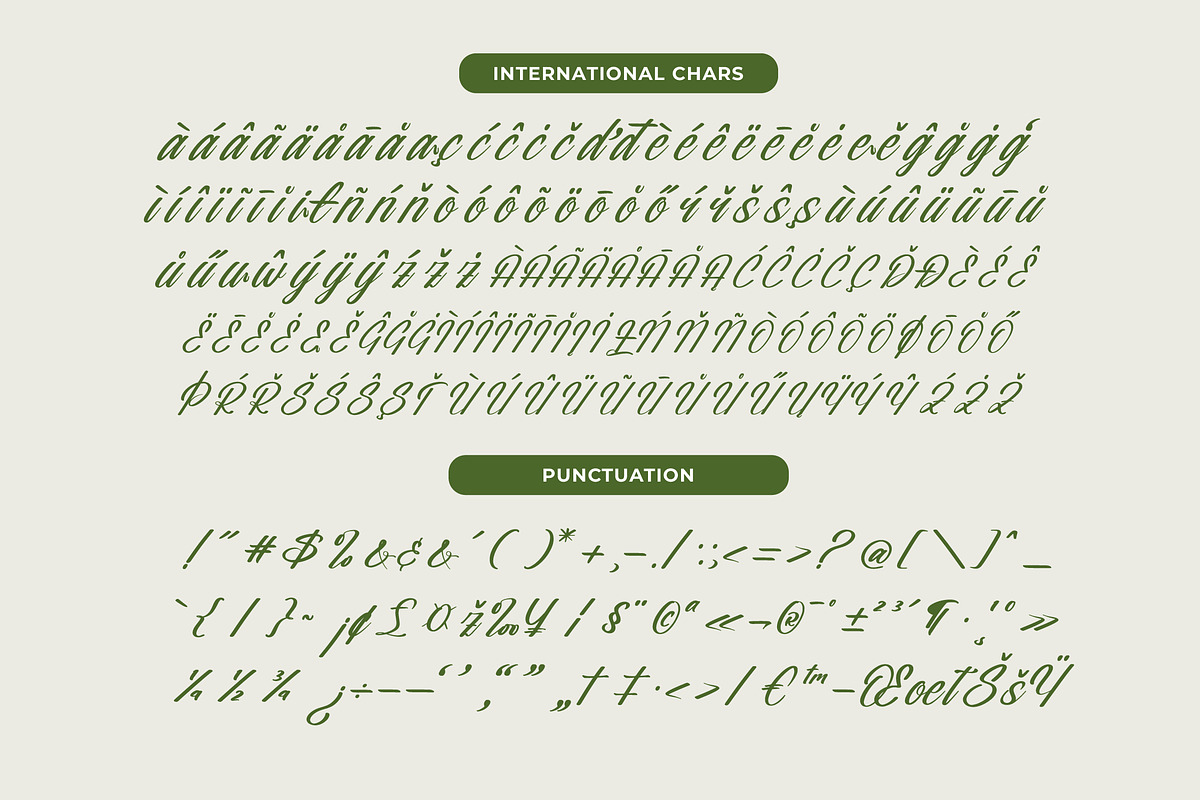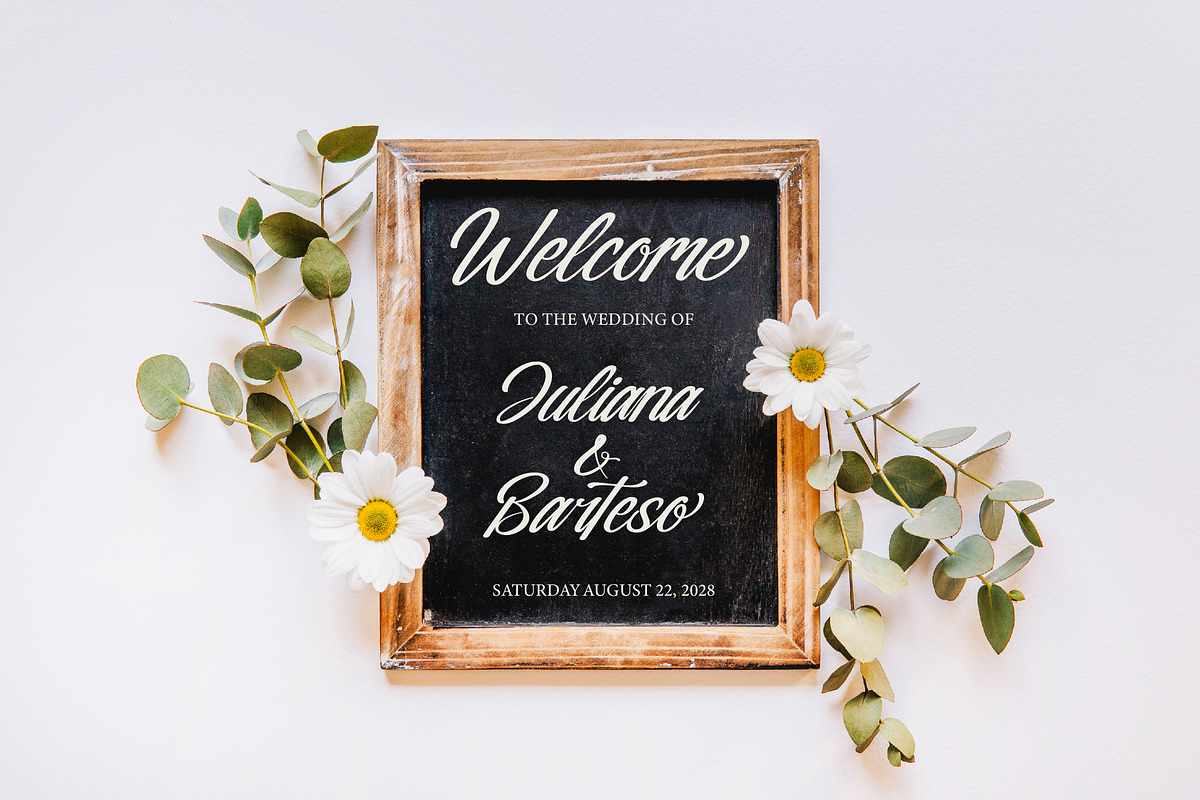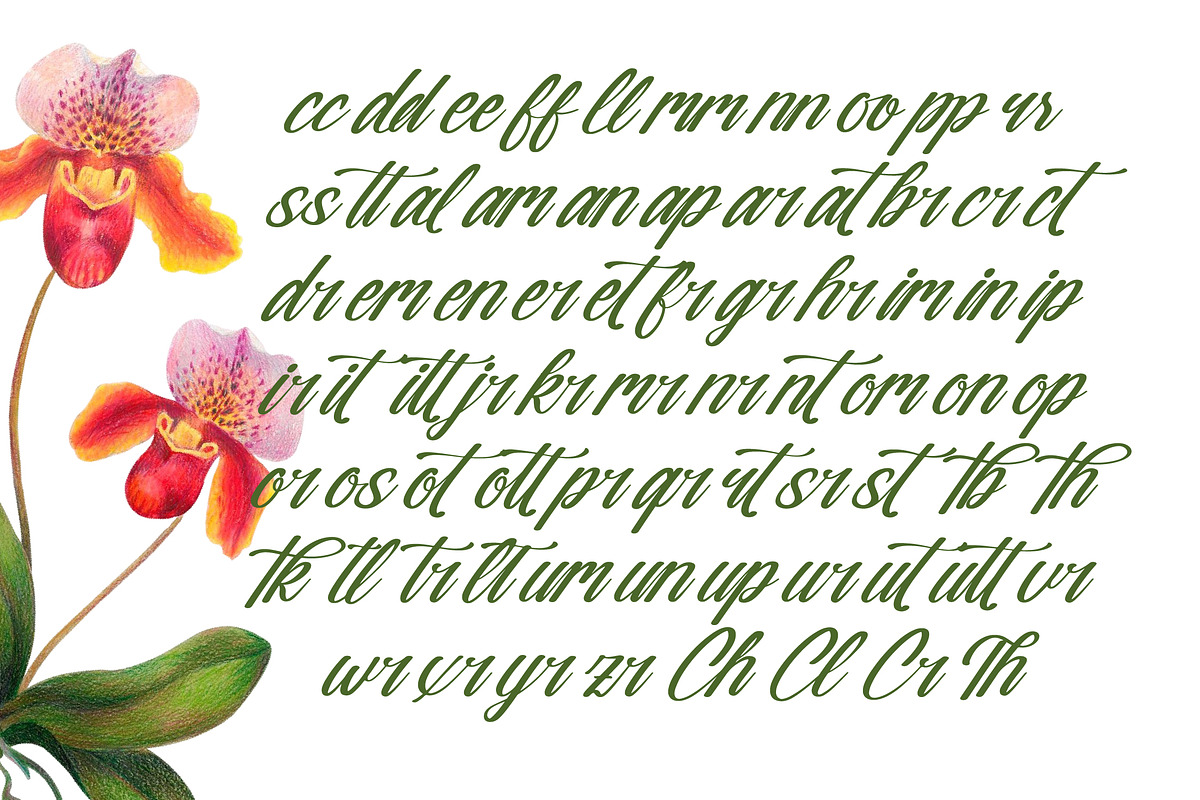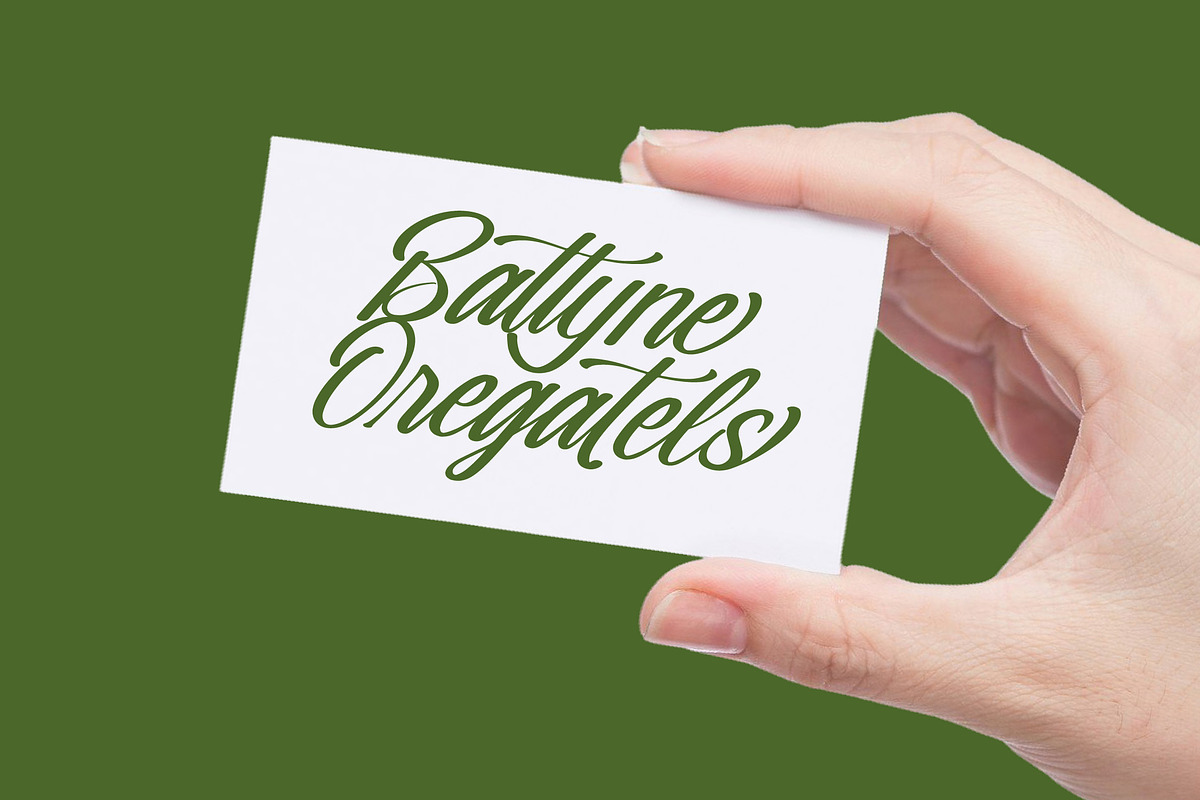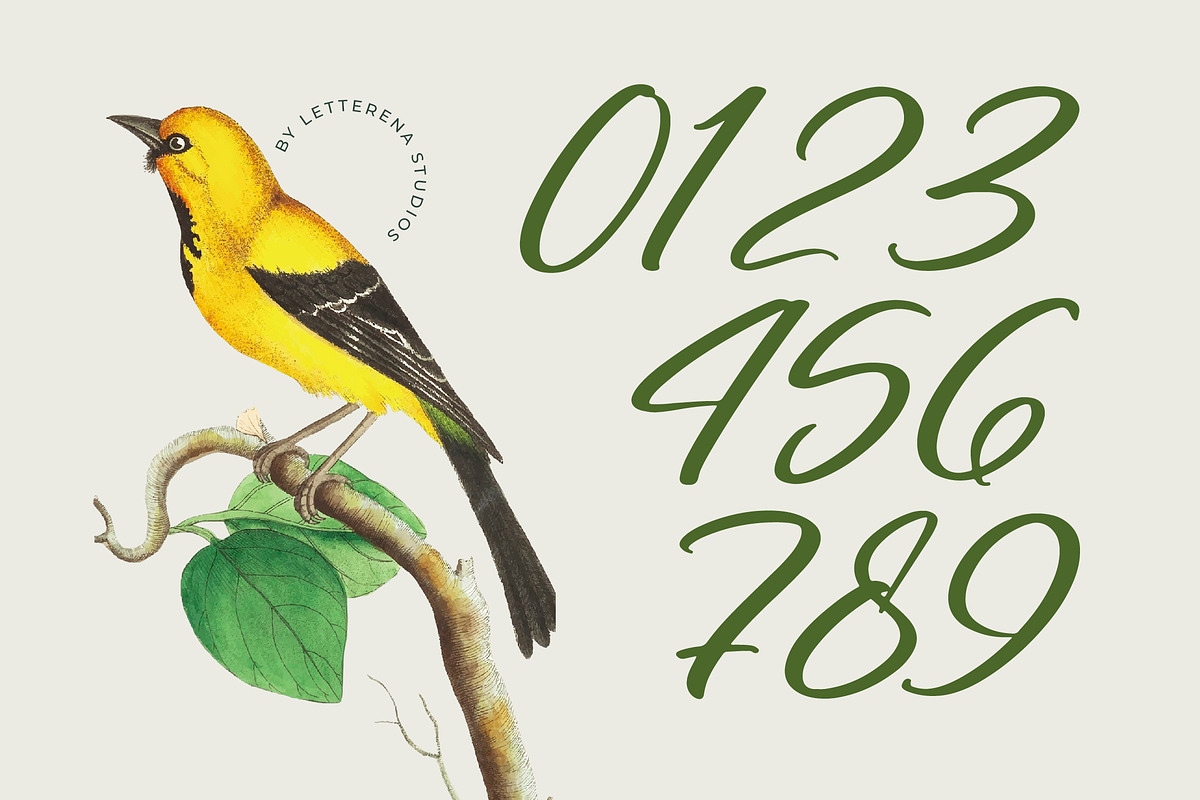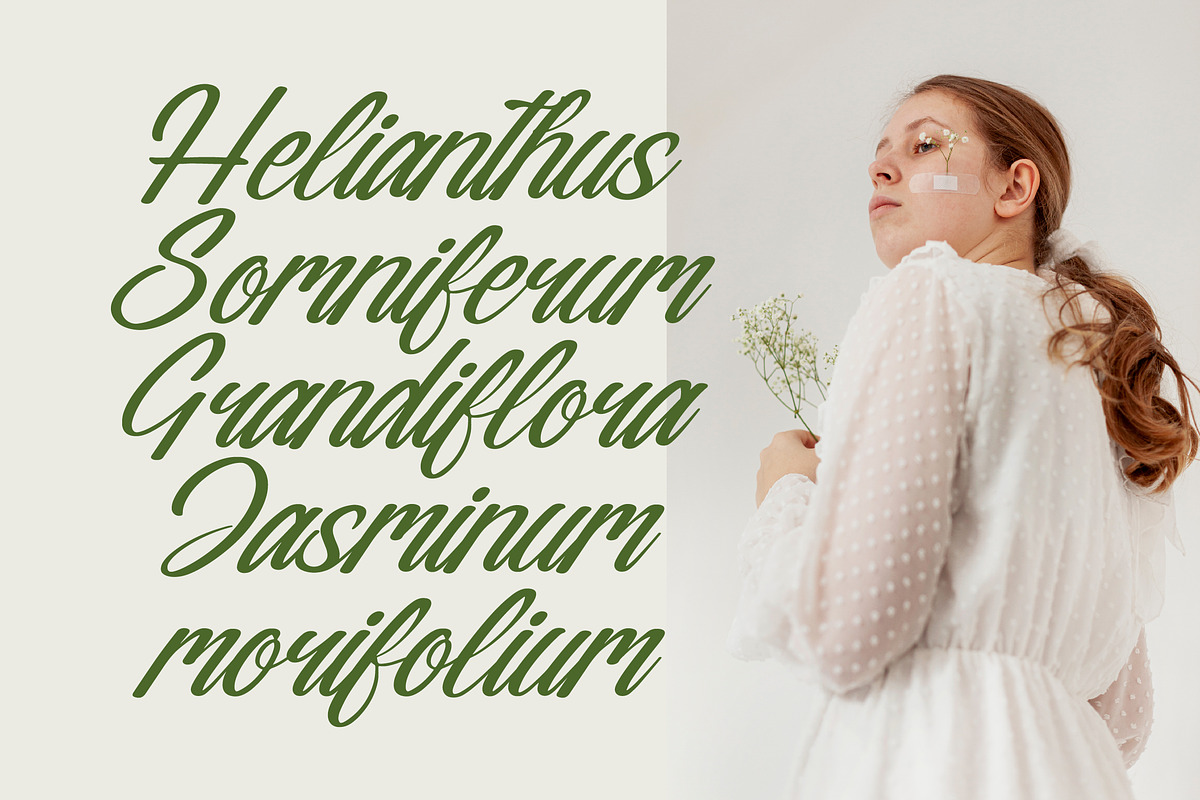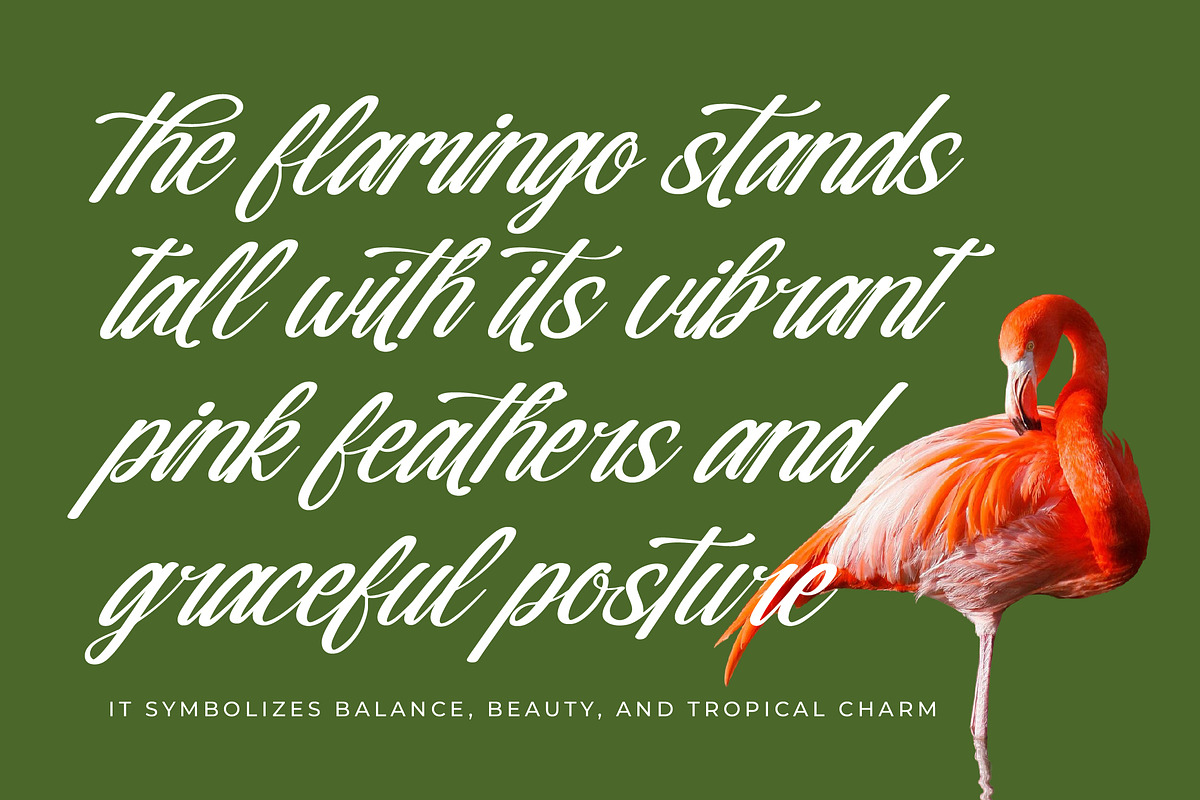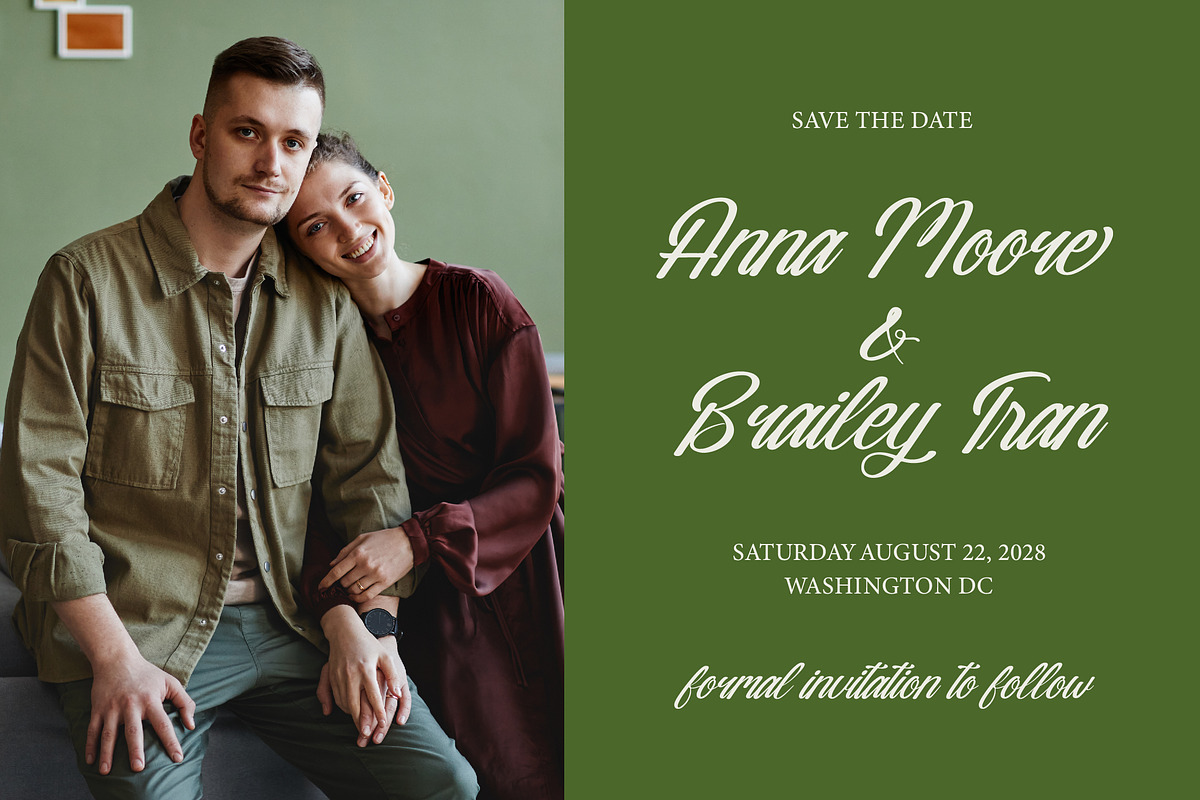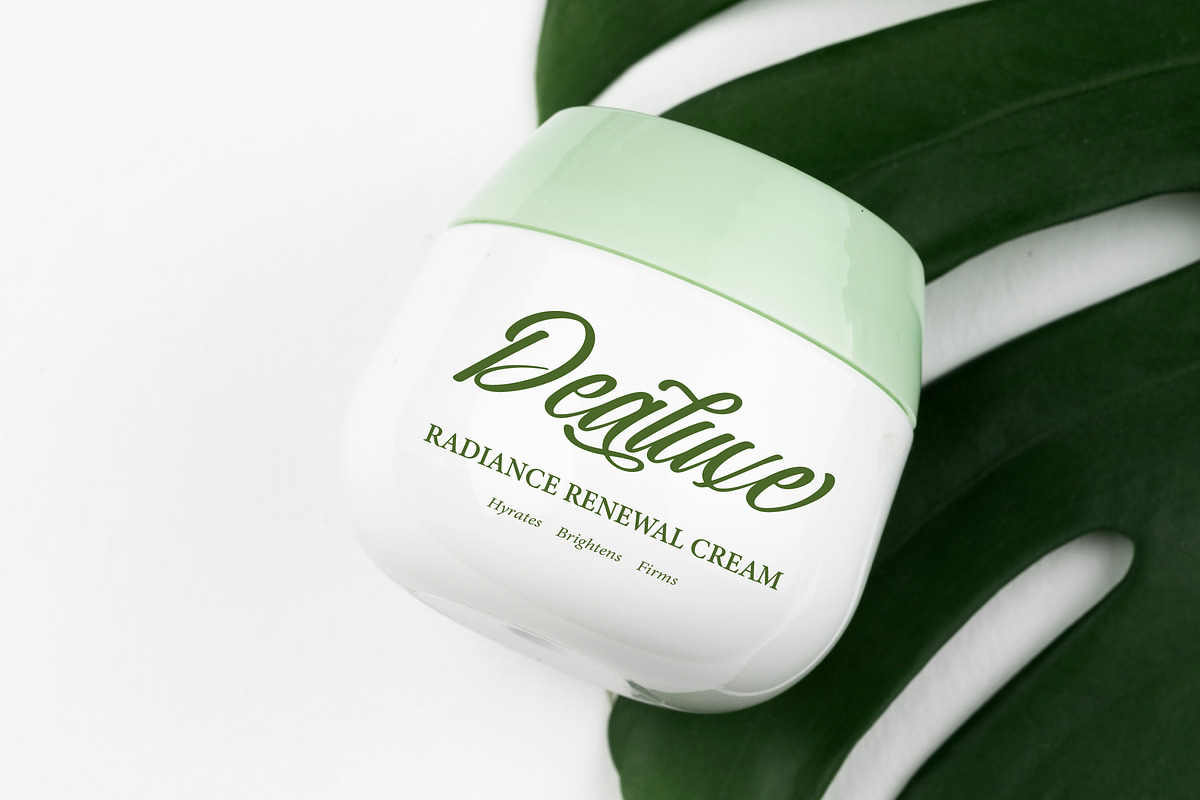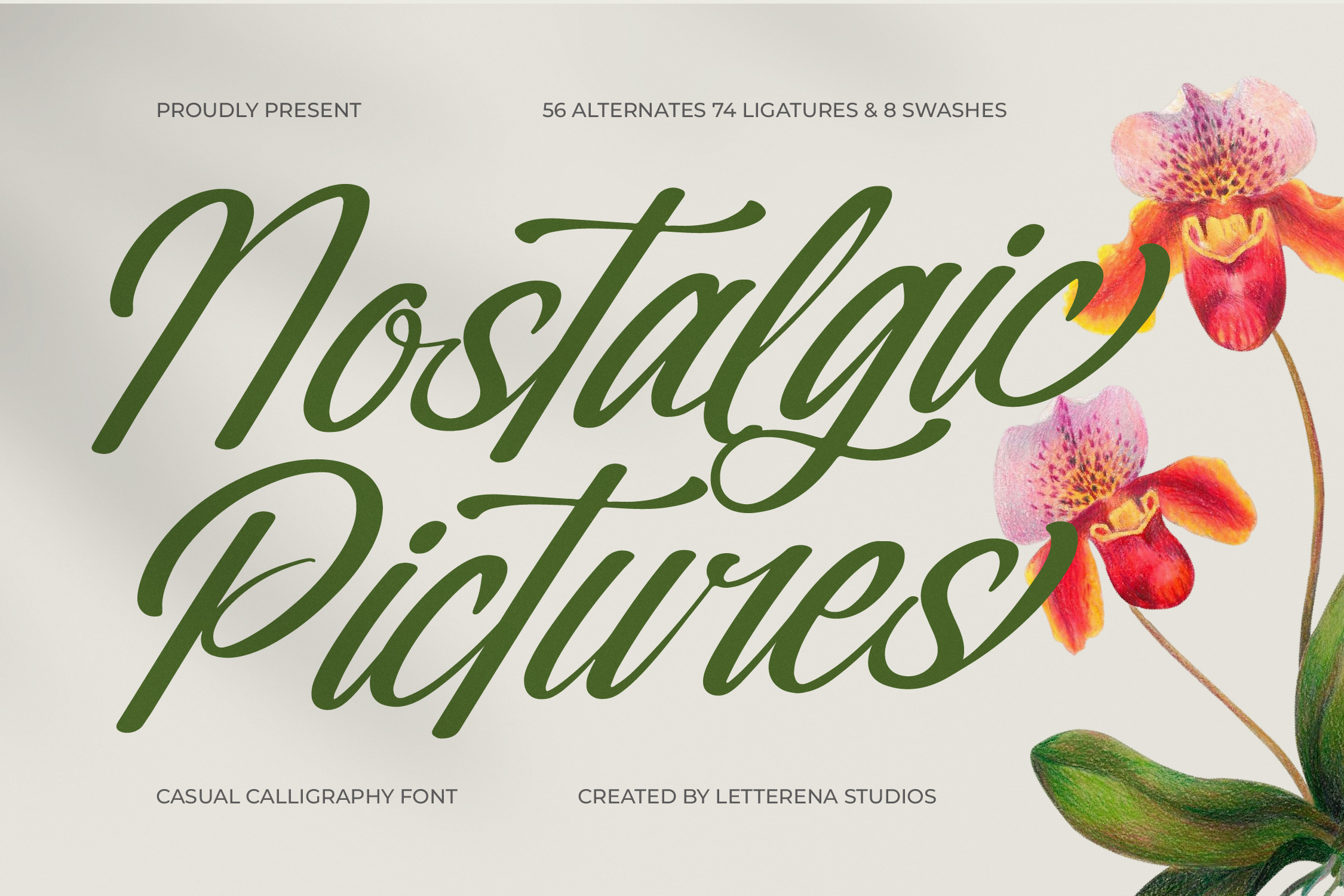
Nostalgic Pictures Calligraphy Font
Nostalgic Pictures - Casual Calligraphy Font , from Letterena, is a Luxury Script font, suitable for any projects such as: logos, branding projects, homeware designs, product packaging, mugs, quotes, posters, shopping bags, t-shirts, book covers, name card, invitation cards, greeting cards, label, photography, watermark, special events, and all your other luxury and beautiful projects that need a Luxury Script taste.
- 56 Ligature 74 Alternate & 8 Swashes